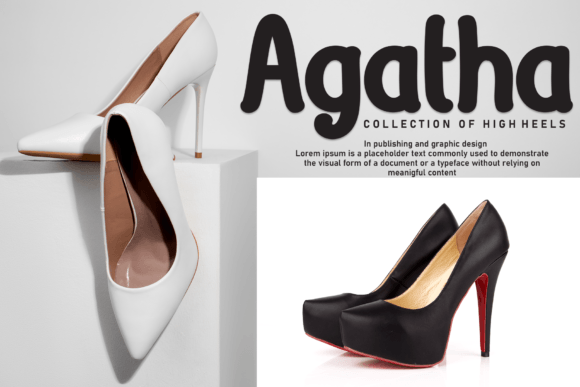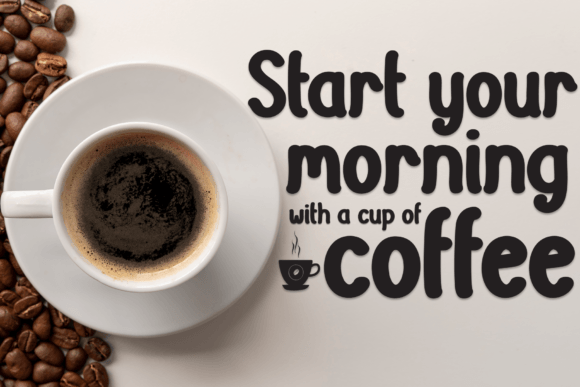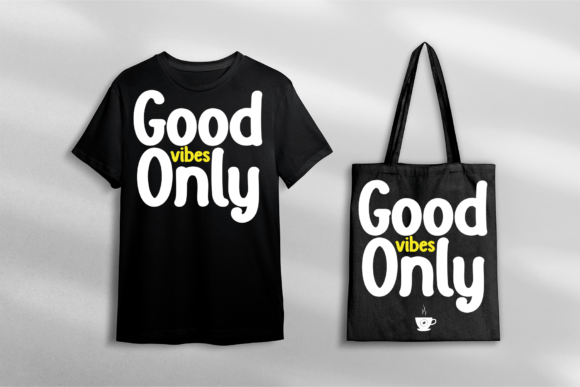
Natural Coffee Font: A Cute & Cozy Display Font for Logo Design
About the Natural Coffee Font
The Natural Coffee Font offers a perfect balance of form and function for your design needs. Natural Coffee Font is a charming and inviting typeface that captures the essence of freshly brewed goodness. With its organic letterforms and warm, earthy tones, this font brings a cozy and comforting feel to your designs. Perfect for coffee shop logos, packaging, and café menus, Natural Coffee Font adds a delightful aroma of authenticity and natural appeal, immersing your audience in the rich and inviting world of coffee culture.
Its friendly, slightly rustic character makes it ideal for branding projects centered around artisanal food and beverage, particularly coffee shops and bakeries. It also works well on short-form marketing materials like posters and social media graphics. However, its low x-height and slightly uneven stroke weights make it less suitable for extended body text or user interfaces requiring high readability.
Natural Coffee Font pairs well with clean sans-serif fonts like Montserrat or Open Sans for a balanced contrast, or with a delicate script font like Great Vibes for a touch of elegance. A geometric sans-serif such as Futura would provide a modern counterpoint, creating a sophisticated yet approachable feel.
The font’s overall personality is warm and inviting, conveying a sense of handcrafted quality and authenticity. Avoid using it for projects requiring a modern, minimalist, or highly formal aesthetic.
Natural Coffee Font Usage Examples
Natural Coffee Font Example